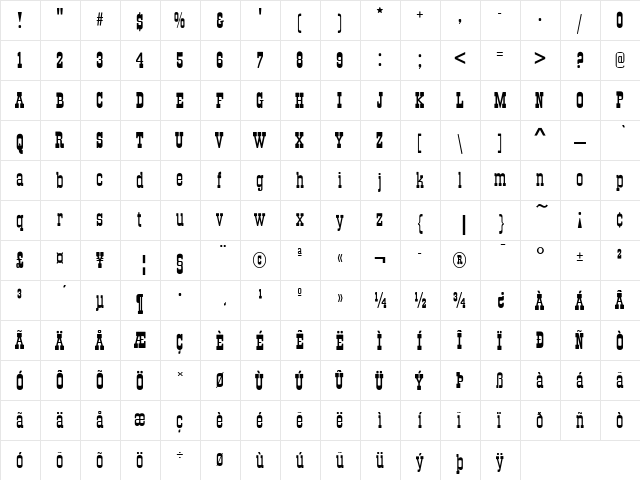
Old Towne No536 D Ro1 Regular
Design Context for Old Towne No536 D Ro1 Typeface
Old Towne No536 D Ro1 is a composed and adaptable typeface that performs quietly and consistently across a wide range of design contexts.